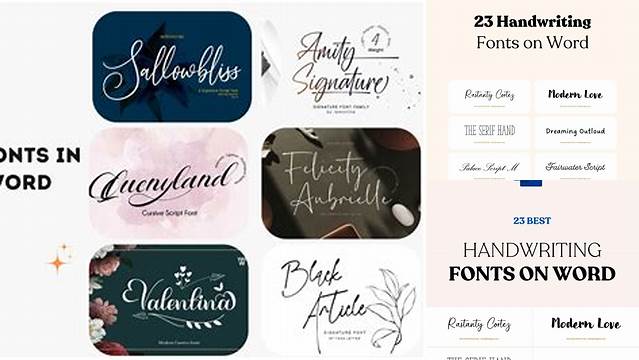
Best Handwriting Fonts In Microsoft Word
Hey guys! Are you looking to add a personal touch to your documents? Maybe you want your work to feel a little less formal and a lot more, well, you? One of the easiest ways to do that is by using handwriting fonts in Microsoft Word. But let's be real, not all handwriting fonts are created equal. Some look super stylish, while others... not so much. That's why I've put together this guide to the best handwriting fonts you can find in Microsoft Word. We'll dive into why these fonts are great, how to use them effectively, and some tips for making your documents look absolutely amazing.
Why Use Handwriting Fonts?
Before we jump into the fonts themselves, let's chat about why you might want to use handwriting fonts in the first place. Handwriting fonts can add a unique and personal touch to your documents that standard fonts just can't match. Whether you're creating invitations, designing personalized letters, or even sprucing up a school project, these fonts can make your words feel more authentic and engaging. Think about it: a handwritten note has a certain charm that a typed one often lacks. By using a handwriting font, you can capture some of that charm while still enjoying the convenience of digital creation.
Adding a Personal Touch
One of the biggest advantages of using handwriting fonts is the personal touch they add. In a world dominated by digital communication, a font that mimics handwriting can help your message stand out. It suggests that extra care and thought went into the creation of the document. This can be particularly effective for invitations, thank-you notes, or even resumes where you want to make a strong first impression. Imagine receiving a wedding invitation that looks like it was penned by the bride herself – that’s the kind of impact a great handwriting font can have!
Making Documents More Engaging
Handwriting fonts can also make your documents more engaging. They break the monotony of standard fonts and add visual interest to your text. This can be especially useful for presentations or reports where you want to hold your audience's attention. A well-chosen handwriting font can make your content feel more approachable and less intimidating. Think about using a handwriting font for headings or subheadings to draw the reader's eye and add a touch of personality to your work.
Creating a Unique Brand Identity
For businesses and creatives, handwriting fonts can be a fantastic way to create a unique brand identity. Using a consistent handwriting font in your marketing materials, website, and social media graphics can help you stand out from the competition. It adds a human element to your brand and makes it more relatable to your audience. Whether you're a blogger, designer, or small business owner, incorporating a handwriting font into your branding can help you connect with your audience on a deeper level.
Top Handwriting Fonts in Microsoft Word
Alright, let's get to the good stuff! Microsoft Word comes with a bunch of fonts, but finding the best handwriting fonts can sometimes feel like searching for a needle in a haystack. I've sifted through the options and picked out some real gems that will give your documents that perfect handwritten feel. We'll look at some default fonts and also explore some awesome options you can download and add to Word.
Default Handwriting Fonts
Microsoft Word has a few handwriting fonts that come pre-installed, which is super convenient. These are fonts you can start using right away without having to download anything extra. Let's check out some of the top default options:
1. Brush Script MT
Brush Script MT is a classic handwriting font that has been around for ages, and for good reason. It's elegant, flowing, and has a vintage vibe that's hard to resist. This font is perfect for invitations, certificates, and anything that needs a touch of sophistication. The cursive style makes it feel like it was written with an actual brush, giving it a very authentic look. However, Brush Script MT can be a bit tricky to read in large blocks of text, so it's best used sparingly for headings or short phrases.
2. Lucida Handwriting
Lucida Handwriting is another great default option that offers a more casual and legible style. It’s a clean, rounded font that mimics everyday handwriting, making it ideal for personal letters, notes, and informal documents. Lucida Handwriting is less formal than Brush Script MT, so it's a good choice if you want a friendly and approachable feel. Plus, it's highly readable, which is always a bonus. You can use this font for body text as well as headings without sacrificing clarity.
3. Script MT Bold
Script MT Bold is a bolder version of the classic Script MT, offering a more pronounced and impactful handwritten style. This font is perfect for headlines, titles, and short phrases where you want to make a statement. The bold weight gives it a strong presence, making it stand out on the page. Script MT Bold is particularly effective when used in combination with a lighter, more readable font for the body text. It adds a touch of elegance and personality to your documents without being too overwhelming.
Downloadable Handwriting Fonts
So there you have it, guys! The world of handwriting fonts in Microsoft Word is vast and exciting. By choosing the right fonts and using them effectively, you can add a personal touch to your documents and make them truly stand out. Whether you're crafting a heartfelt letter, designing a stylish invitation, or creating a unique brand identity, handwriting fonts can be a powerful tool in your design arsenal. So go ahead, explore the options, experiment with different styles, and let your creativity flow! Have fun with it, and remember, the best handwriting font is the one that speaks to you and your message.